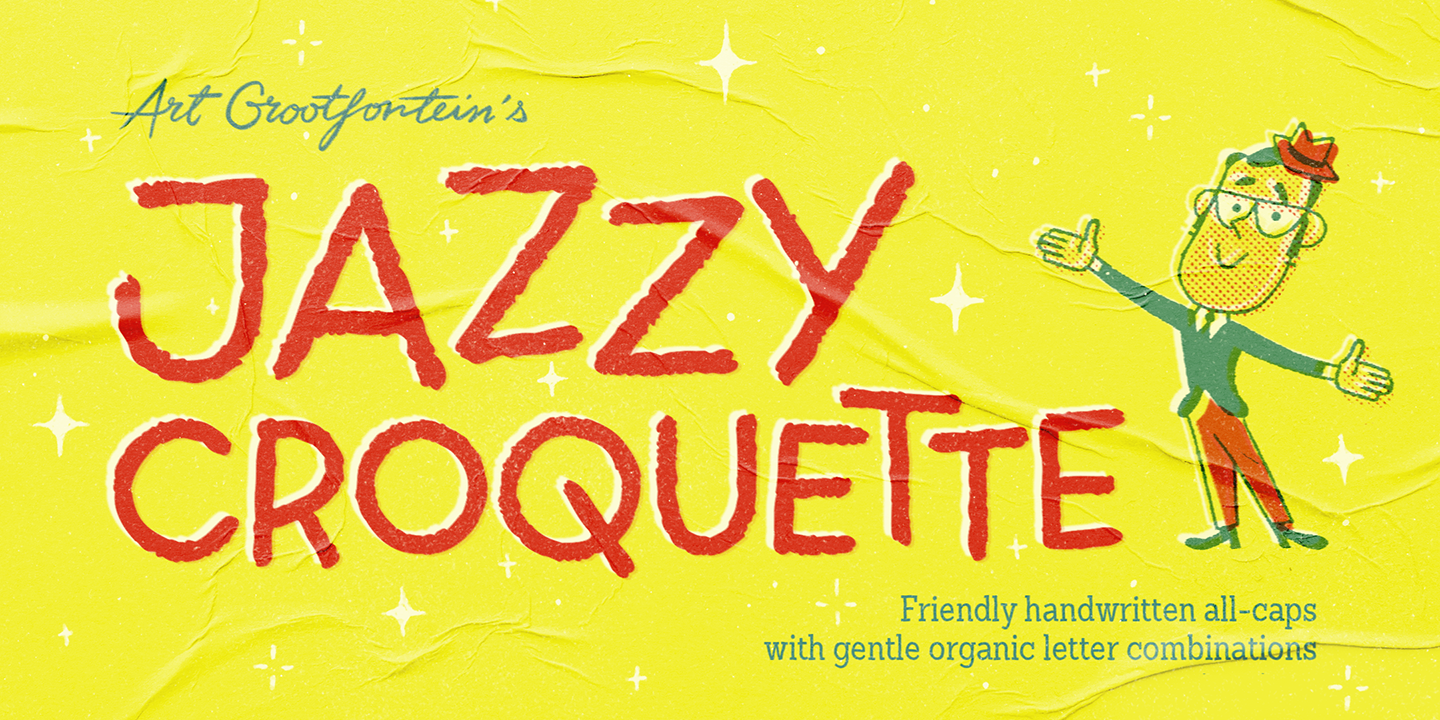
Jazzy Croquette Font is ideal for jazz music venues, vintage cocktail bars, French bistro restaurants, retro dance studios, swing music festivals, classic cabaret theaters, and sophisticated entertainment establishments. This rhythmic typeface captures the smooth elegance of jazz culture and culinary sophistication, bringing musical rhythm and gourmet charm to any design project celebrating nightlife entertainment and refined dining experiences.
What makes Jazzy Croquette Font exciting is its delightful fusion of musical rhythm and culinary elegance that perfectly embodies the sophisticated atmosphere of jazz clubs and fine dining establishments. The font features flowing letterforms with syncopated curves and playful variations that evoke both the improvisational spirit of jazz music and the artisanal craft of French cuisine. Its sophisticated character creates an atmosphere of cultured entertainment while maintaining excellent readability for both menu applications and music venue promotions.
The Jazzy Croquette Font family includes regular and bold weights with complementary script variations and musical ornamental elements. The character set features jazz ligatures, culinary symbols, musical alternates, and entertainment decorative accents that enhance the font's sophisticated appeal. Extended character support includes French diacritics and music notation symbols for authentic jazz and culinary applications.
Whether you're designing jazz entertainment brands, creating gourmet restaurant materials, or developing sophisticated nightlife content, Jazzy Croquette Font Free Download provides exceptional rhythm and versatility. This stylish typeface transforms ordinary text into smooth entertainment experiences that celebrate jazz culture while establishing memorable brand recognition in competitive music, dining, and nightlife entertainment marketplaces.